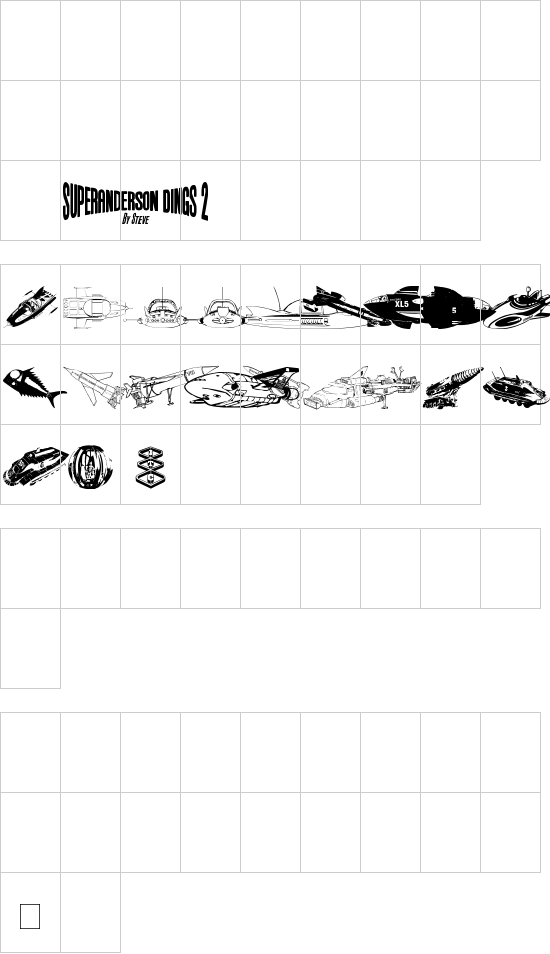
Anderson Dings 2
Anderson Dings 2 is a dingbat font filled with assorted symbols and small illustrations in place of standard letters. Each key delivers a different graphic mark, drawn in a consistent style that ranges across decorative shapes and little pictures handy for dropping straight into a layout.
These ready-made icons are useful for decorative borders, flyer accents, scrapbook elements, and graphic projects needing quick ornamental marks. Anderson Dings 2 is free to download as a TrueType file, and the preview tool lets you type different keys to see which symbol sits behind each character before you build it into your design.